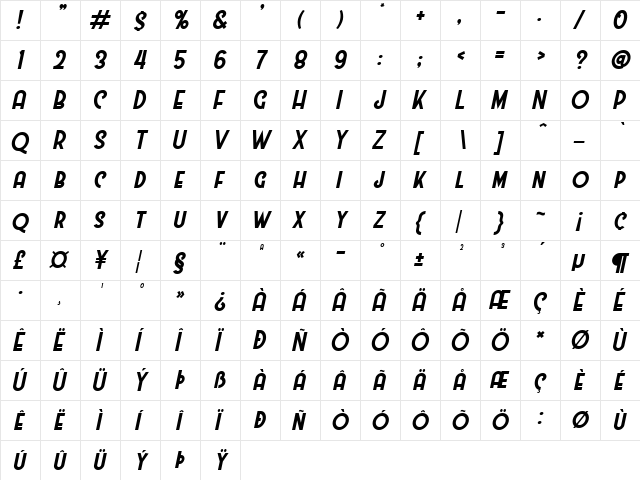
Westmeath Italic
| Foundry | Twicolabs Fontdation |
| Designer | Twicolabs Fontdation |
Design Context for Westmeath Typeface
Westmeath takes a measured approach to typography — its balanced proportions and neutral character make it a reliable workhorse for both digital and print work. Its italic angle brings a sense of urgency and motion to the letterforms.
Pro Tip: Use Westmeath for emphasis, pull quotes, and subheadings where its slanted energy can add rhythm to the layout.